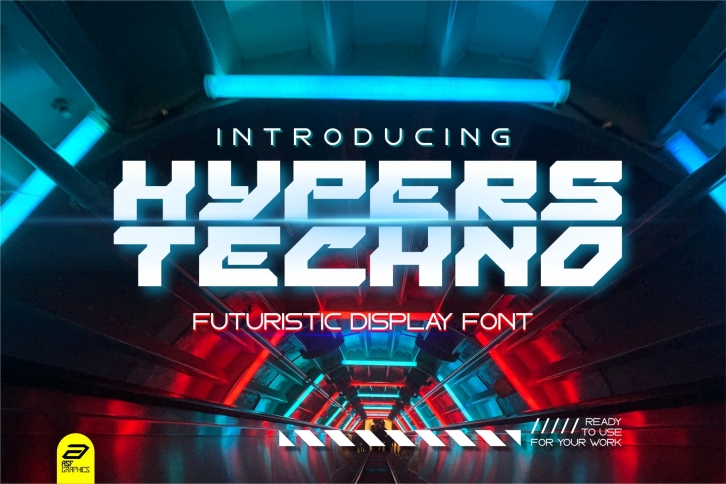
Hyper Tehcno is a beautiful font that was designed by cikareotype. It's a great choice for designers and creatives who need such a font. It was released on August 3, 2021 and the file size is 12.97 MB. Hyper Tehcno may give a more youthful, expressive and casual look to your project. It is a very beautiful, refined, elegant, and high-quality font.